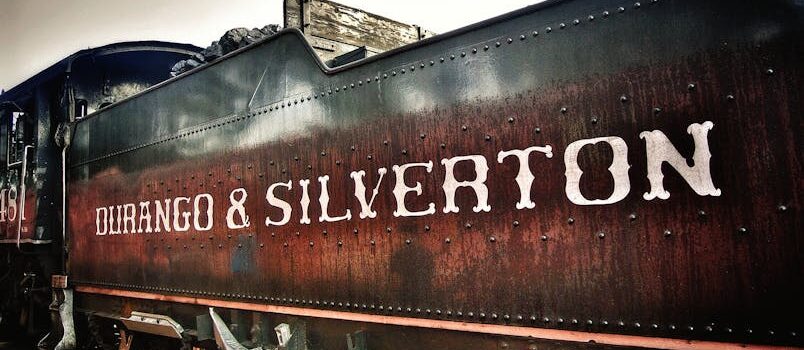
Western fonts offer a direct line to America’s frontier heritage, bringing instant character and authenticity to design projects. Whether you’re creating materials for a themed event, developing a brand identity, or simply looking to infuse your work with that rugged Western charm, these free fonts provide professional-quality options without stretching your budget.
In the world of graphic design, finding the perfect font can transform an ordinary project into something truly memorable. When it comes to creating designs with that quintessential Old West feel – whether for a barbecue restaurant menu, a country music poster, or a rustic wedding invitation – Western fonts are the go-to choice for capturing that rugged, frontier spirit.
Experiment with different combinations, trust your eye, and remember that the best typography choices are those that enhance your message rather than distract from it. Happy designing!
Bronco
A clean, modern Western font with a retro vibe. It’s great for blending rustic charm with a minimalist edge.
Texas Tango
his font captures the spirit of classic country signage. Ideal for logos and title headings.
Rio Grande
A bold, rugged serif font inspired by old wanted posters. Works perfectly for Western movie titles or whiskey labels.
Albertson
A classic Western slab serif font. Think John Wayne meets old saloon doors — it doesn’t get more iconic.
Eastwood
Bandito
Rough and rugged, this font feels hand-carved and powerful. Great for outdoor adventure themes, too.
Lathier
Stylized and sharp — like a cowboy’s stare. This one adds flair without going over the top.
Dust West
Gritty and dramatic. Perfect for grunge Western themes or Halloween cowboy mashups.
CF Wild West
A bold Western font with a vintage twist. Includes multilingual characters for extra versatility.
Euro Western
A distressed Western font with gunpowder charm. Ideal for event posters or themed flyers.
Pain Circus
Lightweight, decorative, and reminiscent of old-timey signage. Great for upscale saloon themes.
Cowboya
Though not purely Western, its bold lines and vintage flair work well in cowboy-style applications.
Cowboy Wildwest
A robust slab serif with true cowboy attitude. Excellent for attention-grabbing headers.
Circus Manerus
An old-fashioned serif with spurred accents. Great for “wanted” posters and vintage branding.
Western Dead
A decorative Western-style font known for its exaggerated curves and saloon-style character.
1873 Winchester
Castlefire
Retro Grunge West
Battle Road
Salvaje Oeste
Brotherland
Whether you’re designing a honky-tonk bar menu, a cowboy-themed party invite, or a rustic brand identity, Western fonts can bring the grit, charm, and wild spirit of the frontier into your design. Try mixing a few and see what story your type can tell!